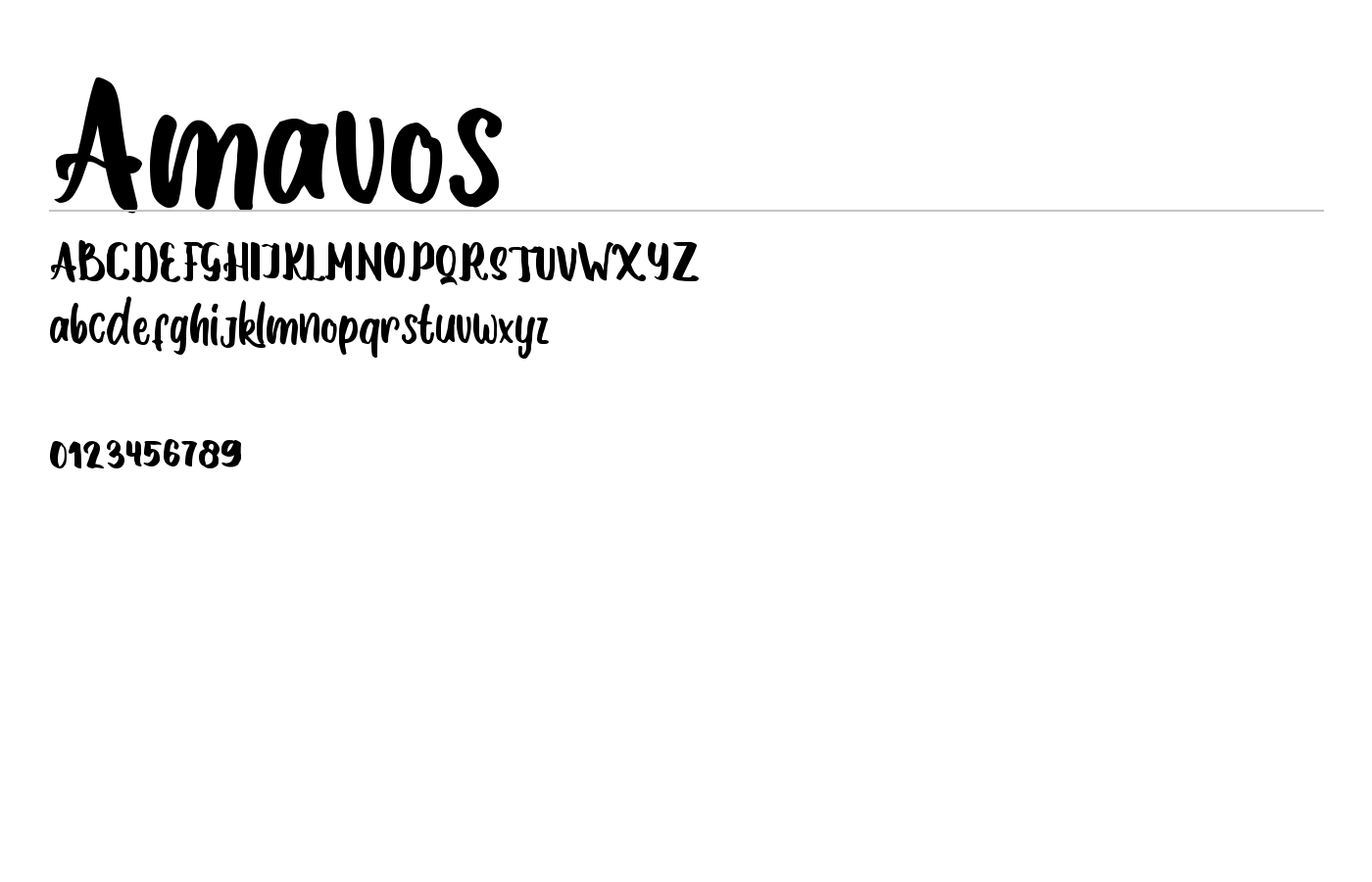
Amavos is a lively and playful handwritten font with a casual, brush-stroke appearance that adds a warm, personal touch. Its bold and slightly irregular letterforms make it ideal for creative branding, invitations, and expressive headlines where a friendly and approachable vibe is desired. This font works well for projects looking to convey authenticity and a handmade feel.
Amavos Font
About Amavos Font